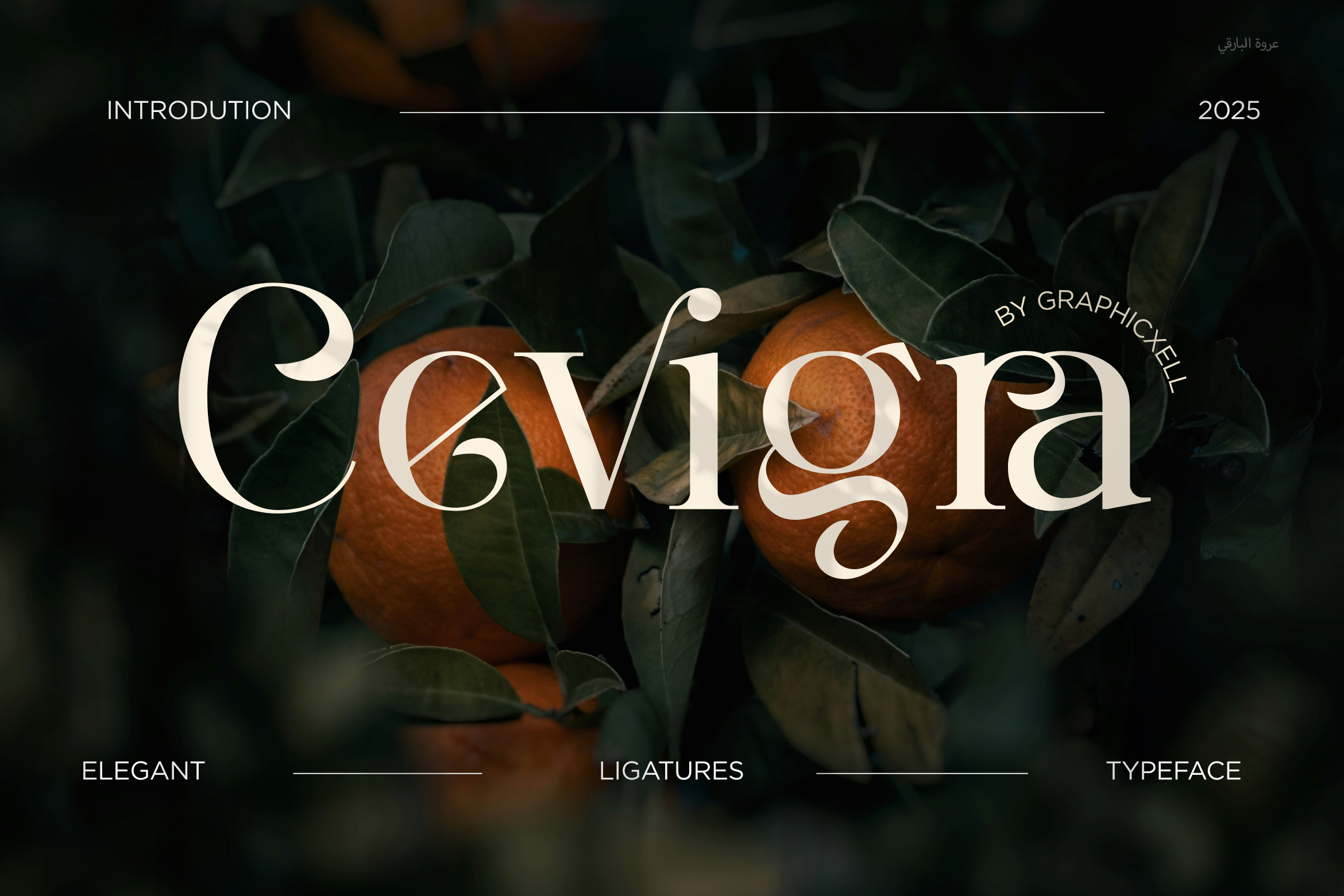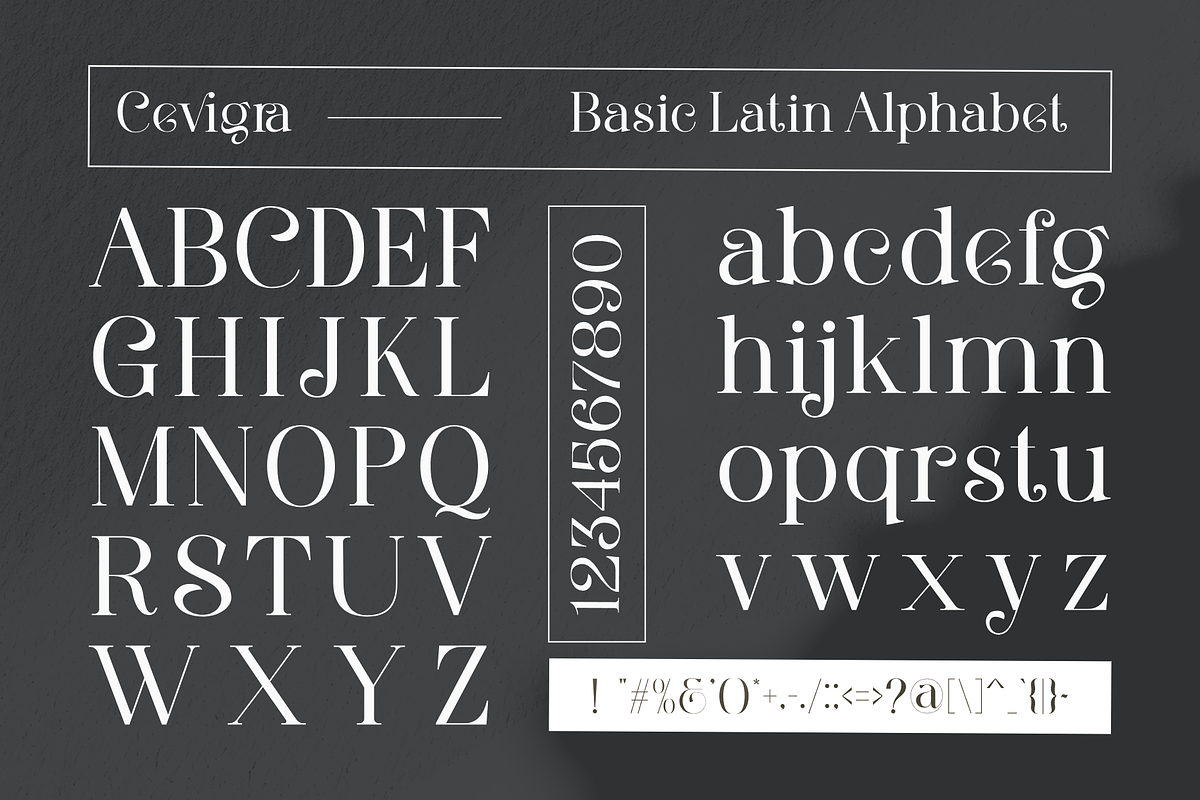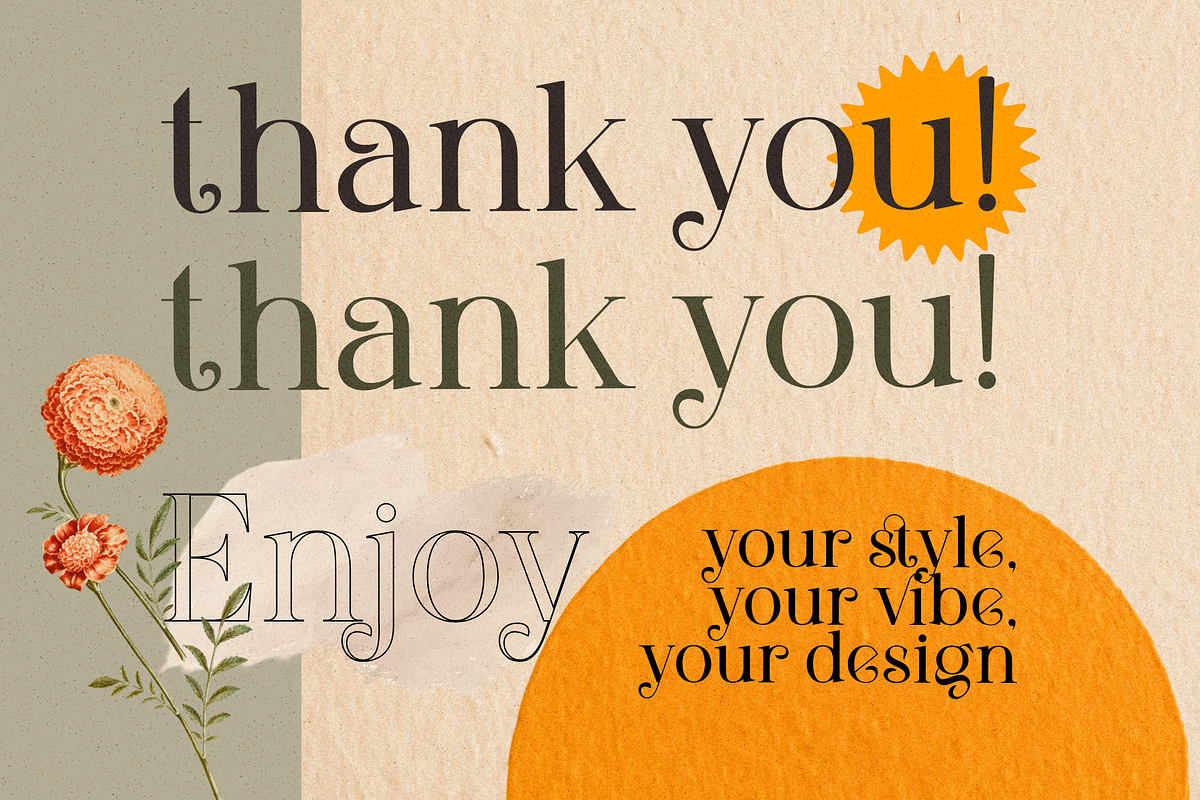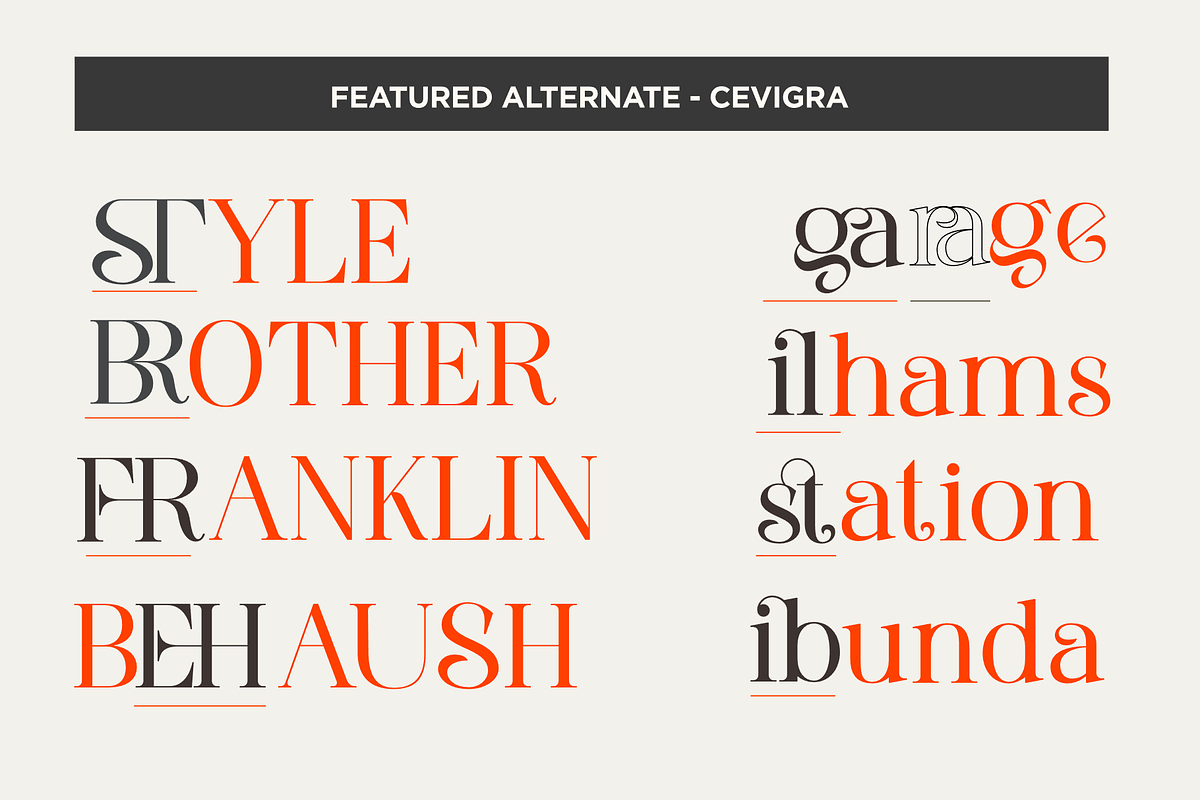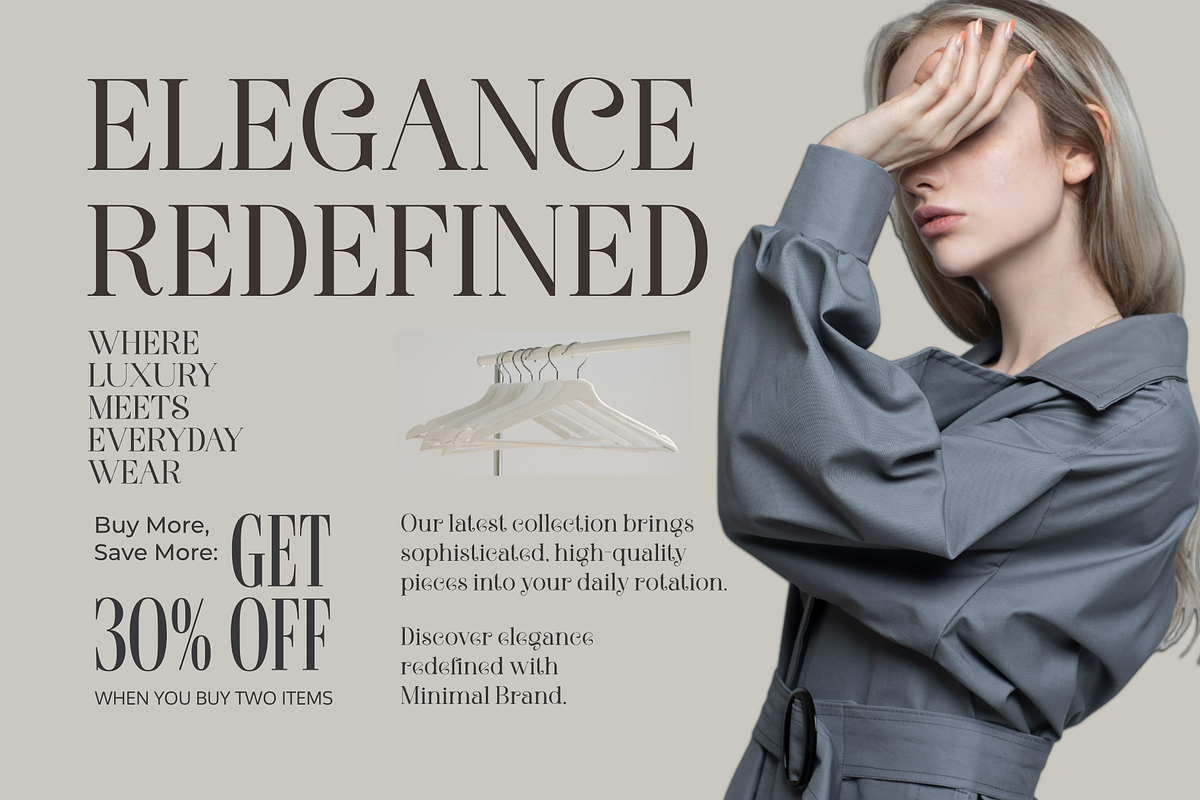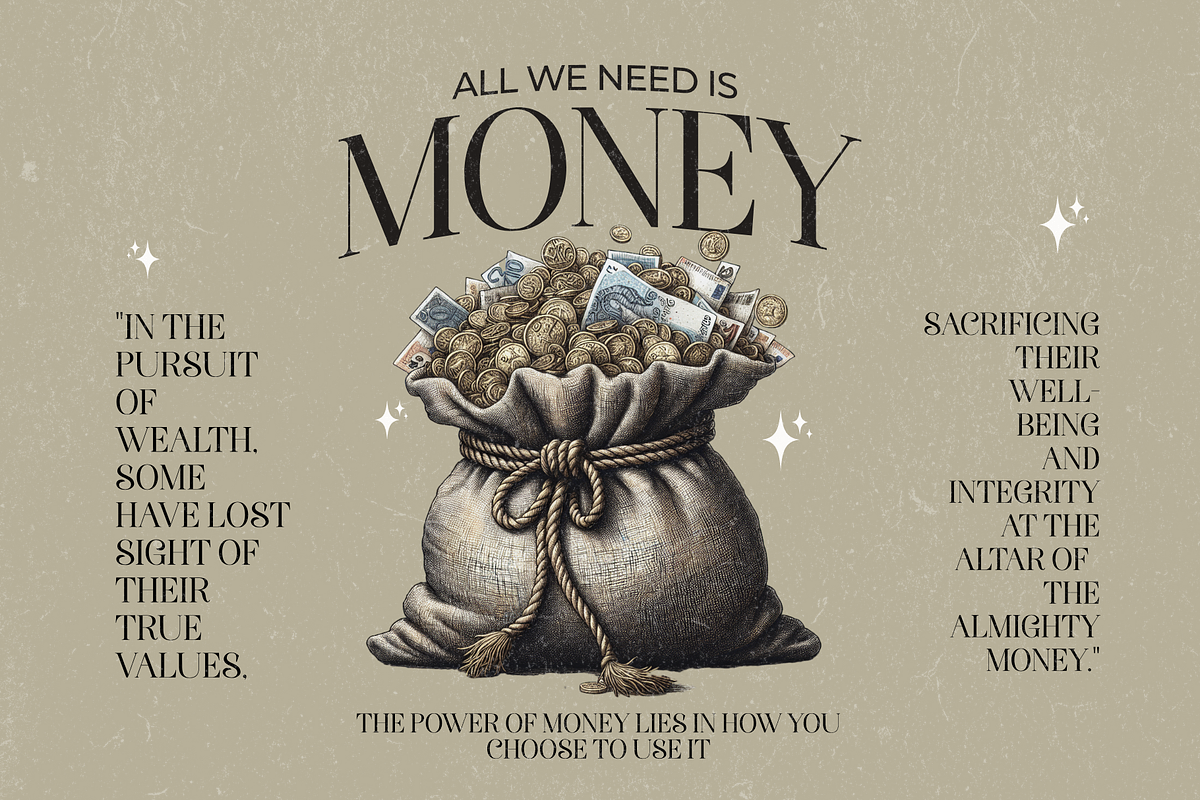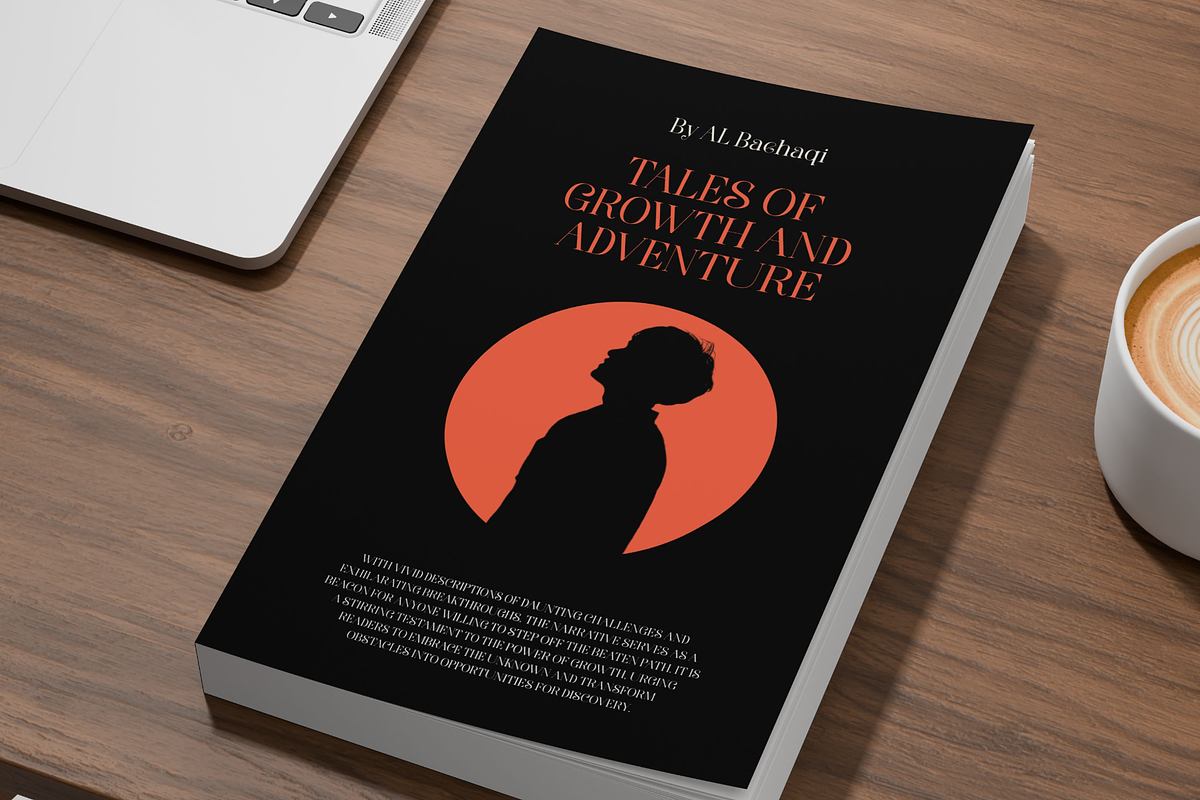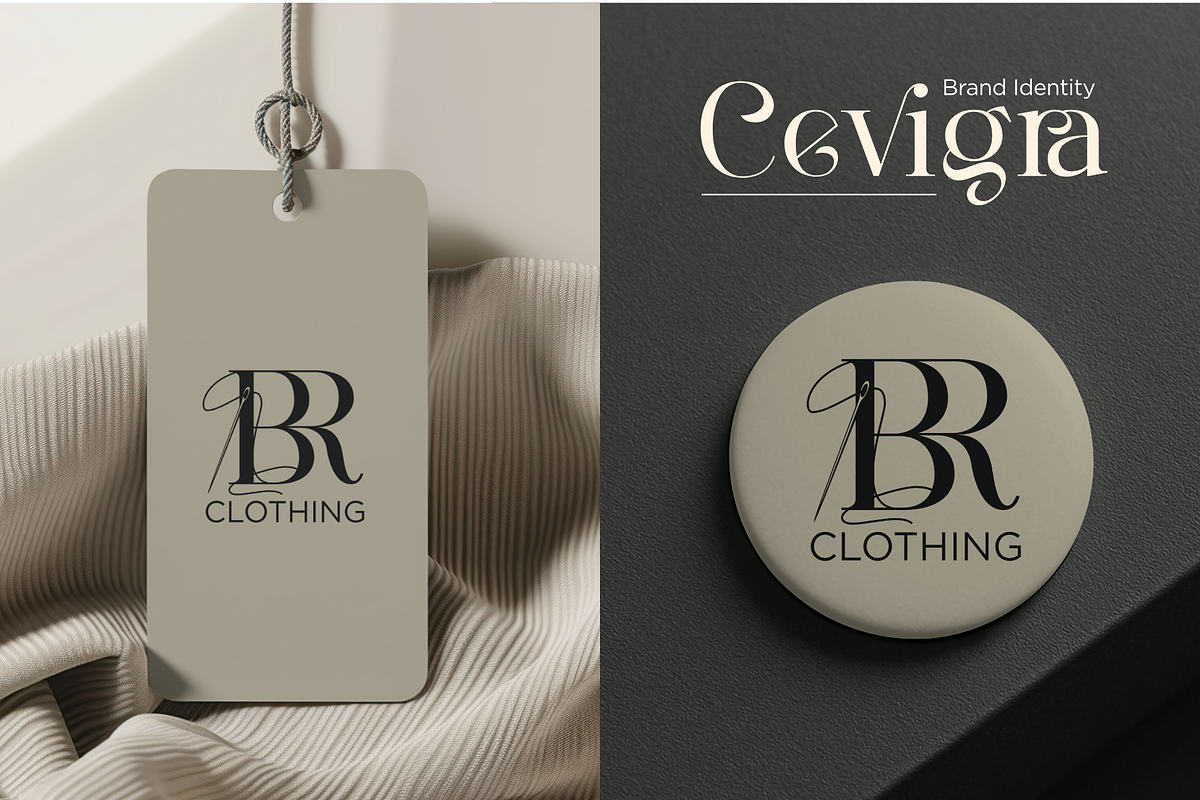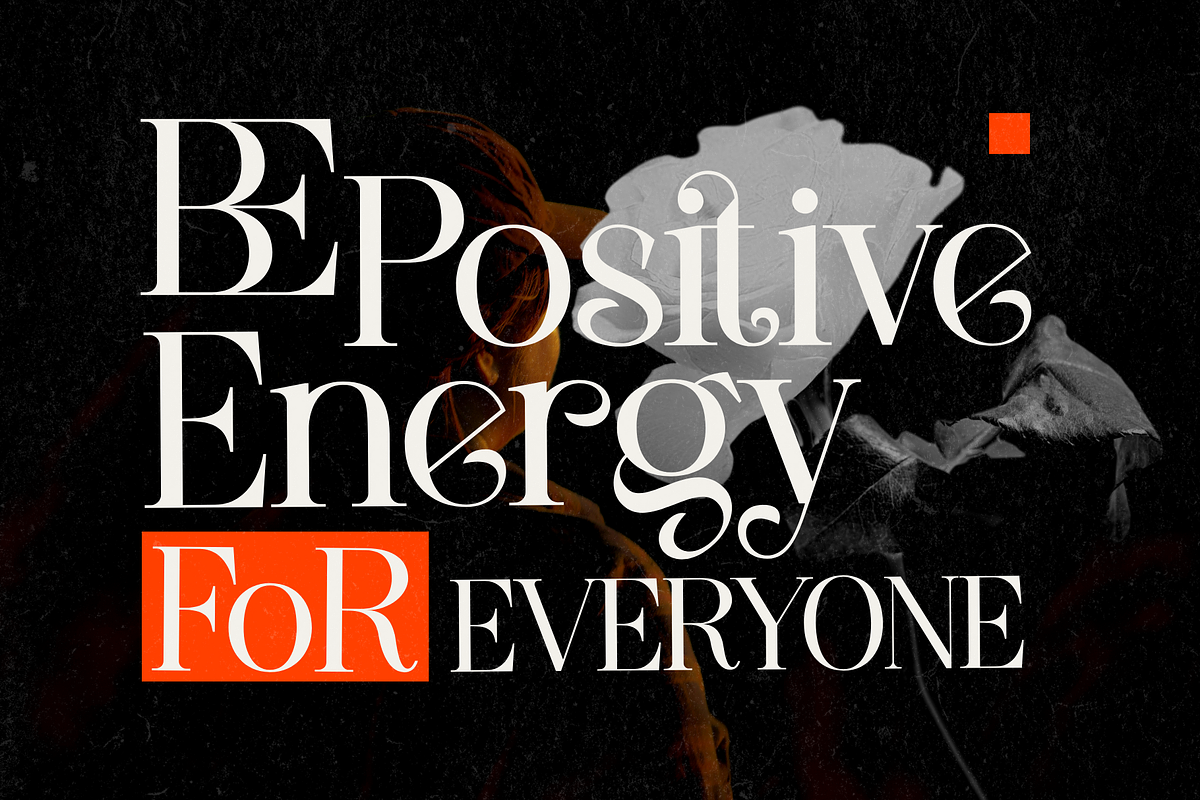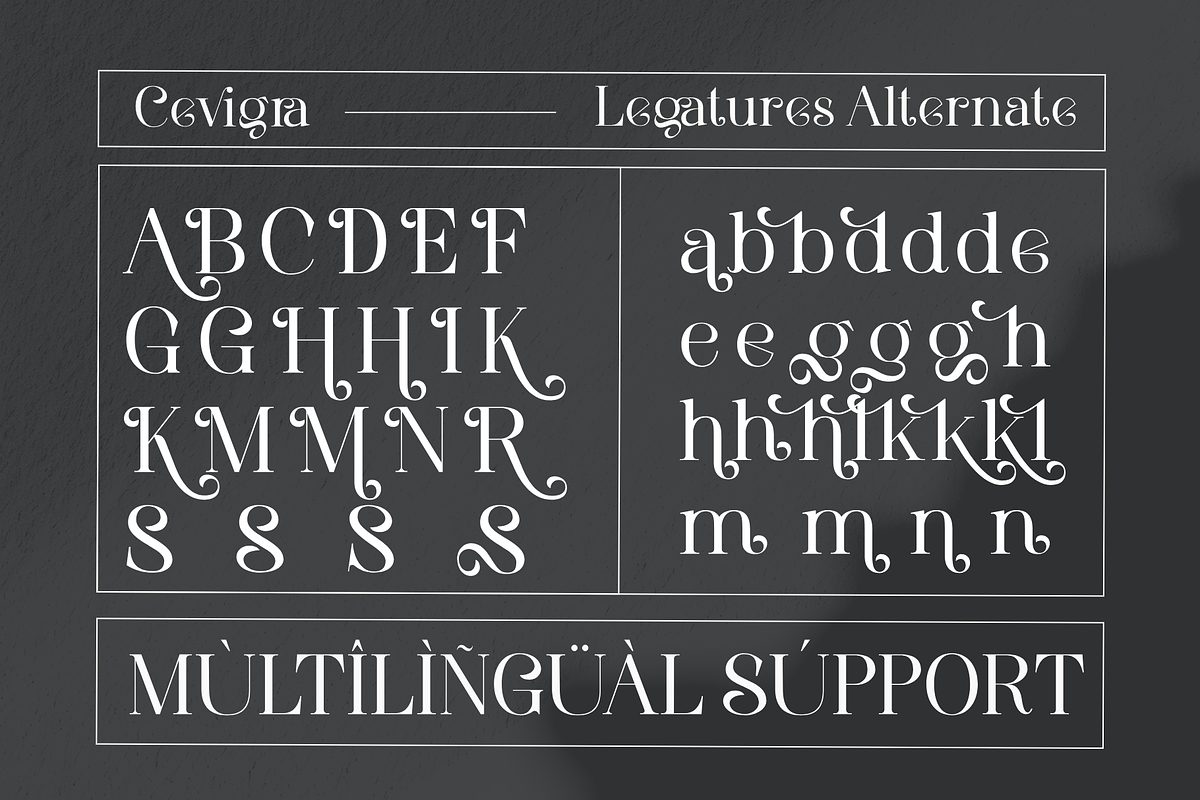
Cevigra Elegant Serif Font
Cevigra Elegant Serif Font – Perfect for Sophisticated and Modern Designs
Cevigra Elegant Serif Font is a modern, refined serif typeface designed to bring elegance to your projects. With its sleek letterforms and proportional shapes, it’s perfect for a wide variety of designs. Whether you're working on luxury branding, product packaging, or website content, Cevigra adds sophistication and professionalism to any project.
This font includes functional ligatures that not only improve text flow but also make your designs more attractive and polished. The ligatures allow characters to connect smoothly, creating a visually appealing and cohesive look. Cevigra is ideal for both print and digital uses, offering excellent readability and style across all platforms.
Key Features of Cevigra Modern & Elegant Design Cevigra combines a modern serif style with timeless elegance. Its clean curves and sharp edges make it the ideal choice for creating sophisticated designs. Whether you’re building a website or crafting a magazine, Cevigra stands out with ease.
Proportional Letterforms for Legibility The proportional letterforms of Cevigra ensure that every piece of text is easy to read. This makes it a great option for long texts, headlines, and logos, as it maintains clarity no matter the project.
Smooth Ligatures for Seamless Flow The ligatures in Cevigra help connect letters in a smooth and stylish way. This small feature improves the overall design by creating an elegant, flowing effect, making it perfect for professional typography.
Ideal for a Variety of Projects Whether you’re designing for fashion, food, advertising, or branding, Cevigra can handle it all. It’s great for logos, social media graphics, product labels, and much more. Its versatility ensures it works well across both print and digital media.
Why Choose Cevigra Font? Cevigra is the ideal font if you want to add elegance and professionalism to your designs. Its modern serif style, paired with functional ligatures and proportional letterforms, makes it a versatile choice for almost any project. Whether you’re creating a luxury brand, designing a website, or crafting product packaging, Cevigra adds a refined and polished touch to your work.
This font works well for print materials, websites, advertisements, and logos, helping your design stand out in a crowded market.